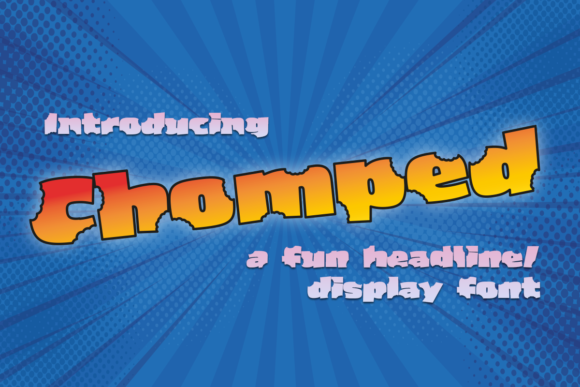
Introducing Chomped Font: Add a Playful Touch to Your Designs
Are you tired of using the same old fonts in your designs? Look no further than Chomped Font, a playful and chunky display font that’s sure to add character and depth to your projects. In this article, we’ll take a closer look at Chomped Font, its features, and how you can use it to elevate your designs.
What is Chomped Font?
Chomped Font is a unique and eye-catching display font that’s perfect for designers and crafters looking to add a touch of whimsy to their work. With its chunky and playful design, Chomped Font is sure to grab attention and make your designs stand out from the crowd.
Key Features of Chomped Font
- Playful and Chunky Design: Chomped Font features a playful and chunky design that’s perfect for creating eye-catching headlines, titles, and labels.
- Versatile: Chomped Font is versatile and can be used in a variety of projects, including watermarks, name tags, labels, banners, and more!
- Easy to Read: Despite its chunky design, Chomped Font is easy to read, making it perfect for use in both digital and print designs.
Uses for Chomped Font
Chomped Font is perfect for a wide range of design projects, including:
- Watermarks: Add a touch of personality to your photos and designs with Chomped Font watermarks.
- Name Tags: Create custom name tags for events, parties, and more with Chomped Font.
- Labels: Use Chomped Font to create custom labels for products, files, and more.
- Banners: Create eye-catching banners for events, sales, and more with Chomped Font.
- Social Media Graphics: Add a touch of personality to your social media graphics with Chomped Font.
Tips for Using Chomped Font
Here are a few tips for getting the most out of Chomped Font:
- Use it as a Headline Font: Chomped Font is perfect for use as a headline font, adding a touch of personality to your designs.
- Experiment with Colors: Chomped Font looks great in a variety of colors, so don’t be afraid to experiment and find the perfect color for your design.
- Pair it with Other Fonts: Chomped Font pairs well with a variety of other fonts, so try pairing it with a sans-serif font for a contrasting look.
Chomped Font is a playful and chunky display font that’s perfect for designers and crafters looking to add a touch of whimsy to their work. With its versatile design and easy-to-read style, Chomped Font is sure to become a go-to font in your design arsenal. So why wait? Download Chomped Font today and start adding a playful touch to your designs!